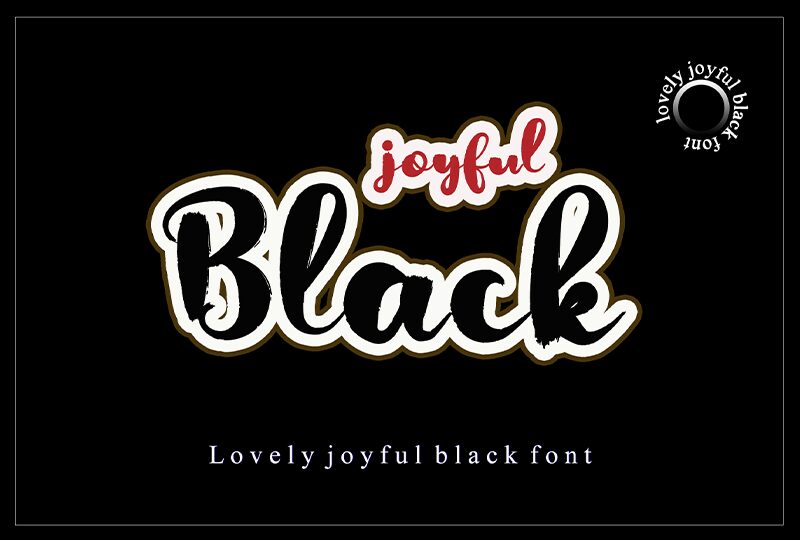
Joyful Black is a bold and beautiful font designed by Dedi Mujiono. Its lovely, smooth brush style captures an air of happiness and positivity, making it perfect for a wide range of projects. Whether you're designing invitations for a wedding or party, creating a logo for a fun-loving brand, or crafting social media graphics that need to stand out from the crowd, Joyful Black is sure to add a touch of joy to your work. With its bold weight and eye-catching design, this font is the perfect choice for any project that needs to make a statement.
Joyful Black
Dedi Mujiono